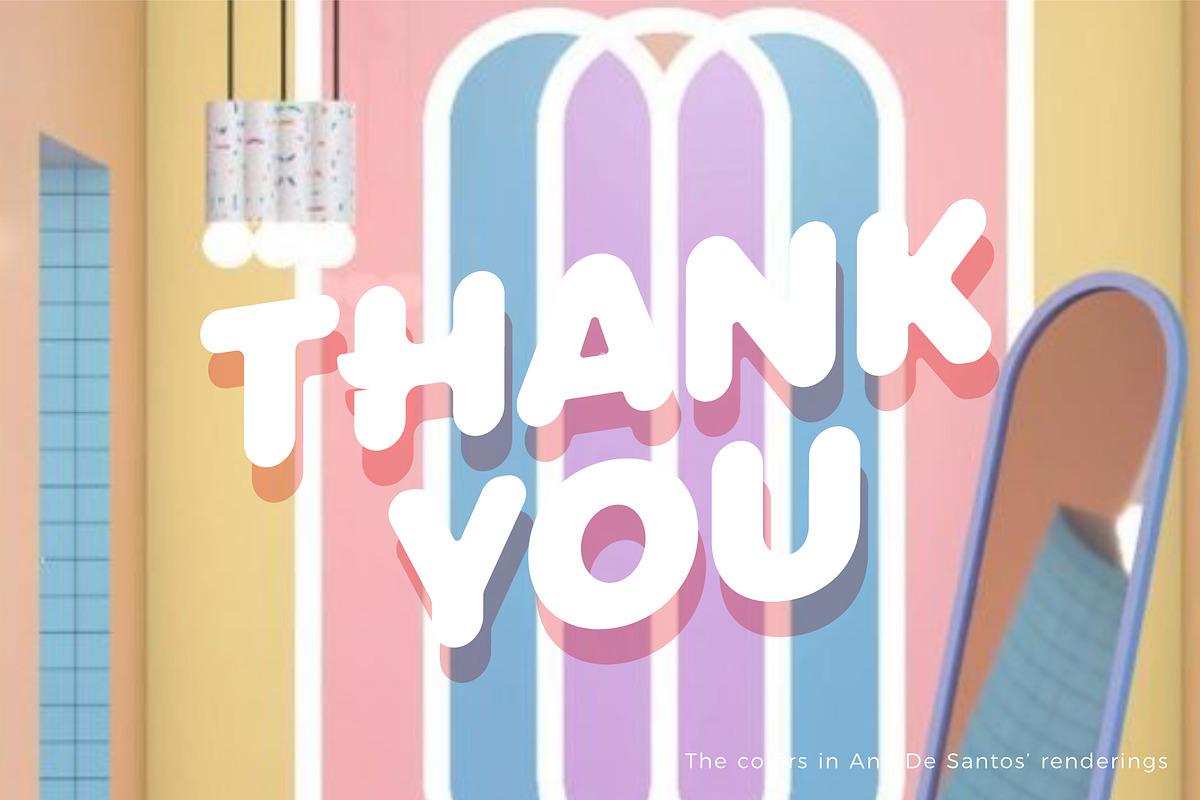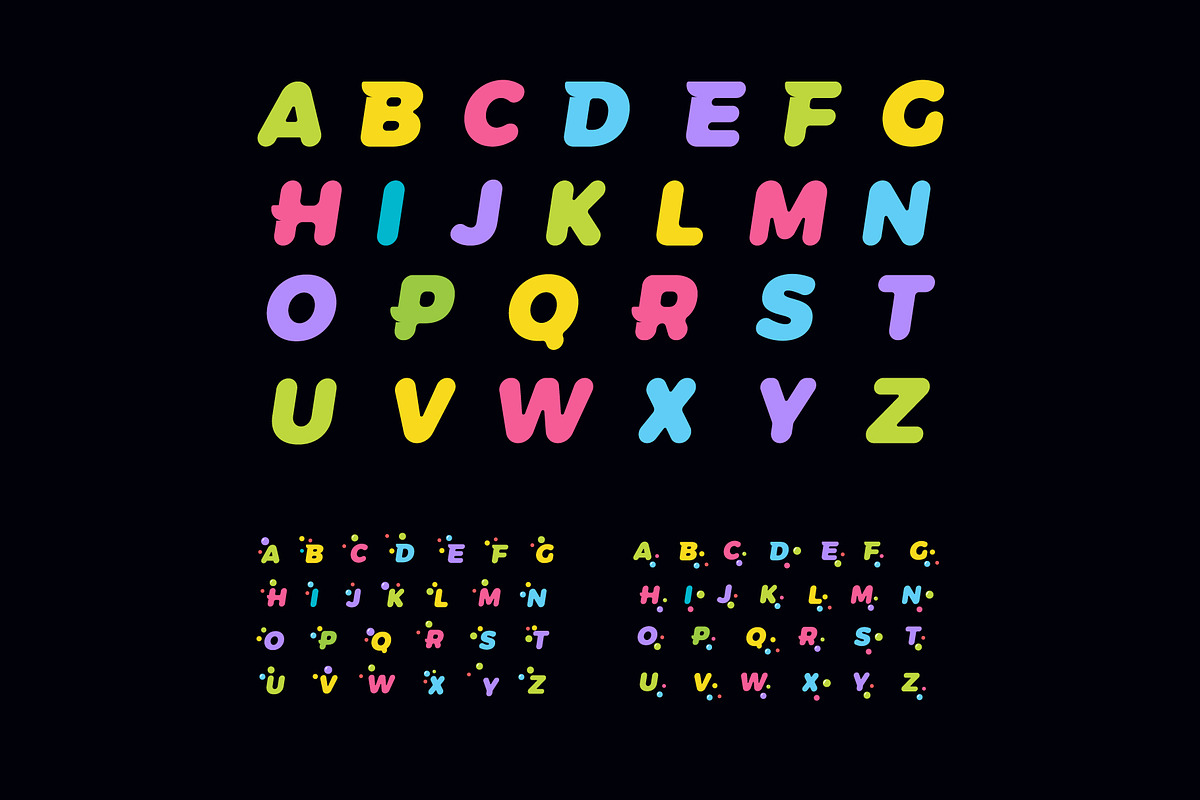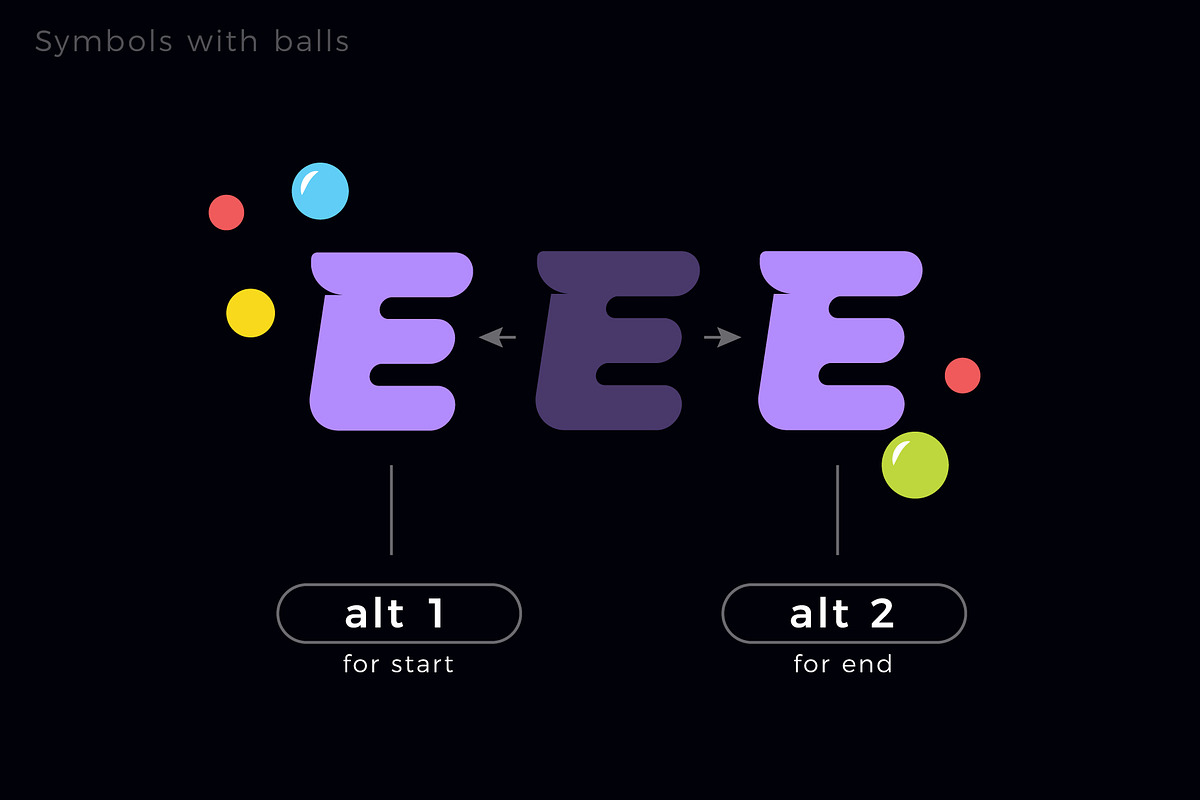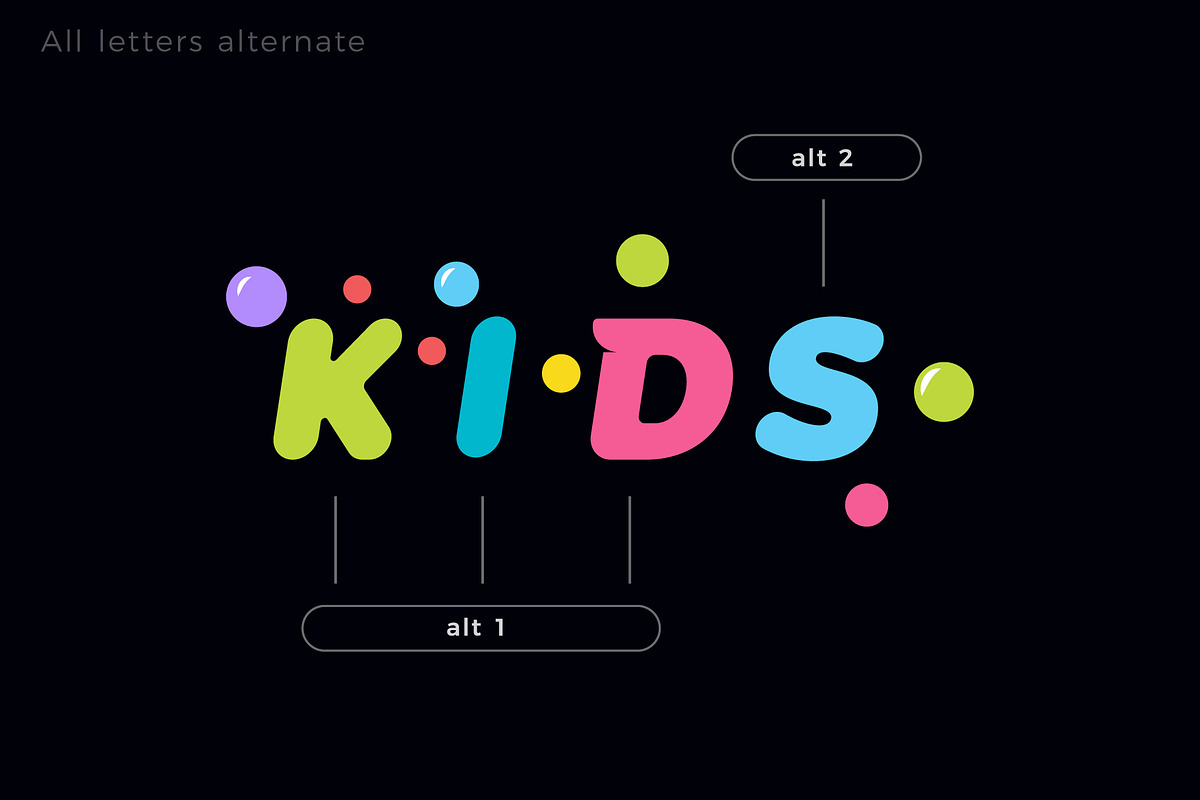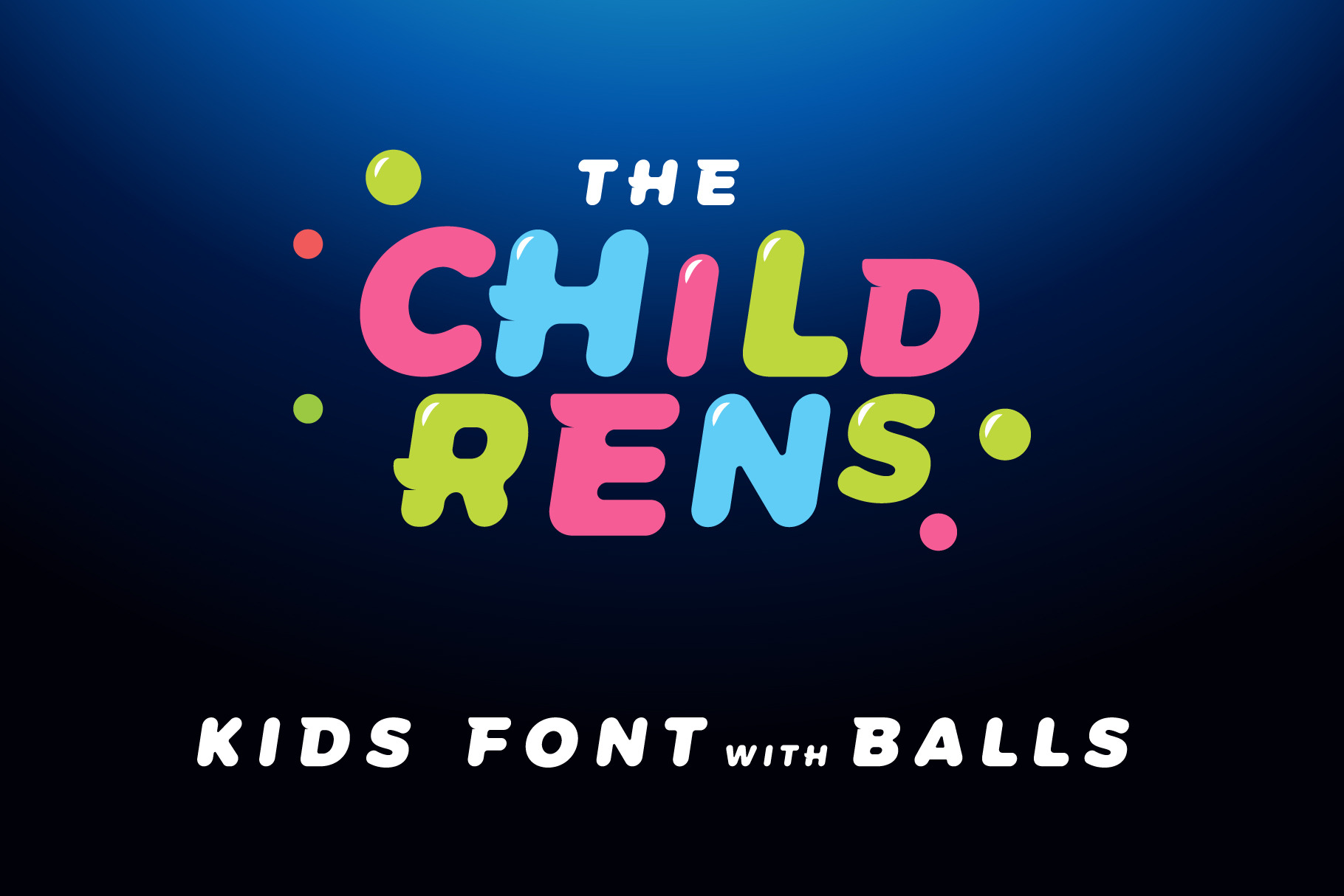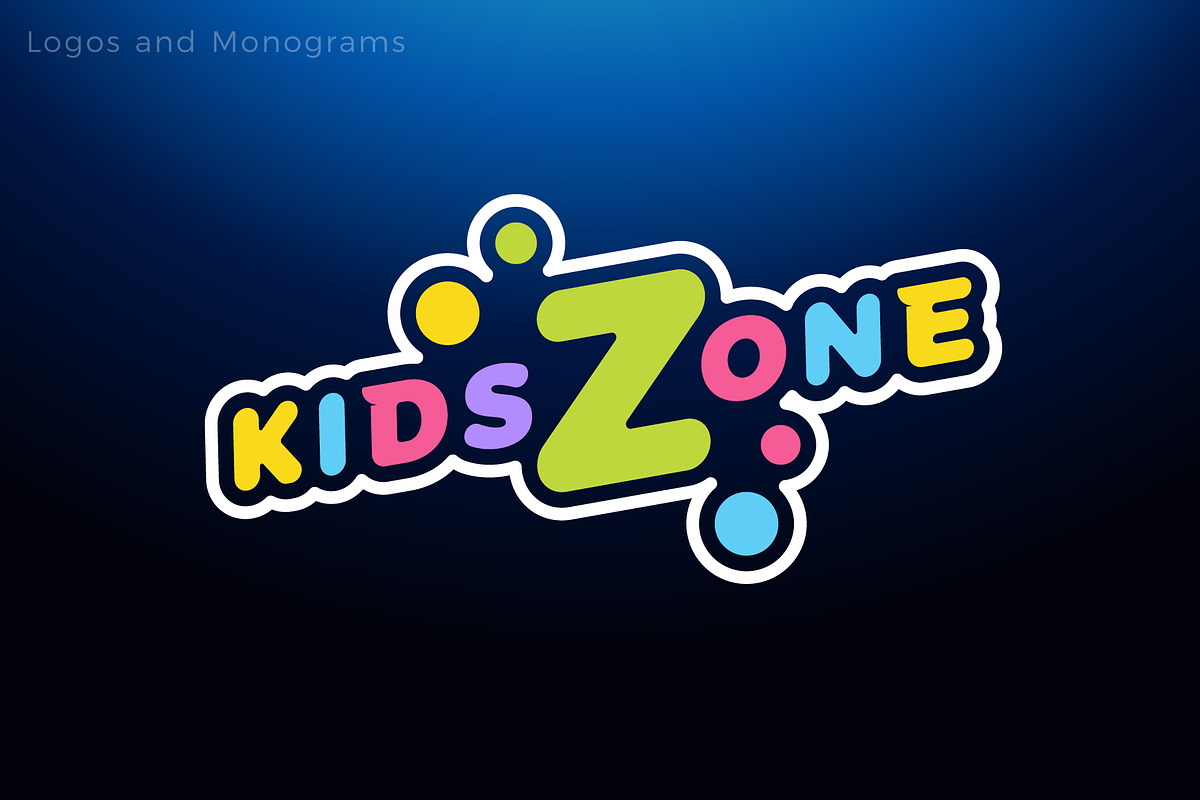
Children's Headline Font
ChildRens Font – A Colorful and Playful Typeface
Add a splash of fun and energy to your designs with the ChildRens Font! Featuring colorful, cheerful letters with a whimsical touch, this font is perfect for projects targeting kids and young audiences. Its unique ponytail accents and bubble-inspired alternate symbols make it a standout choice for playful and vibrant designs.
- Kids' birthday invitations and party decorations
- Playroom branding and children’s toys
- Festive logos and cartoon designs
- Posters, banners, and social media graphics
- Any project that calls for a joyful and colorful vibe
- Uppercase English colorful letters
- Alternate symbols featuring bubbles and balls
- A dynamic, playful style perfect for cheerful designs